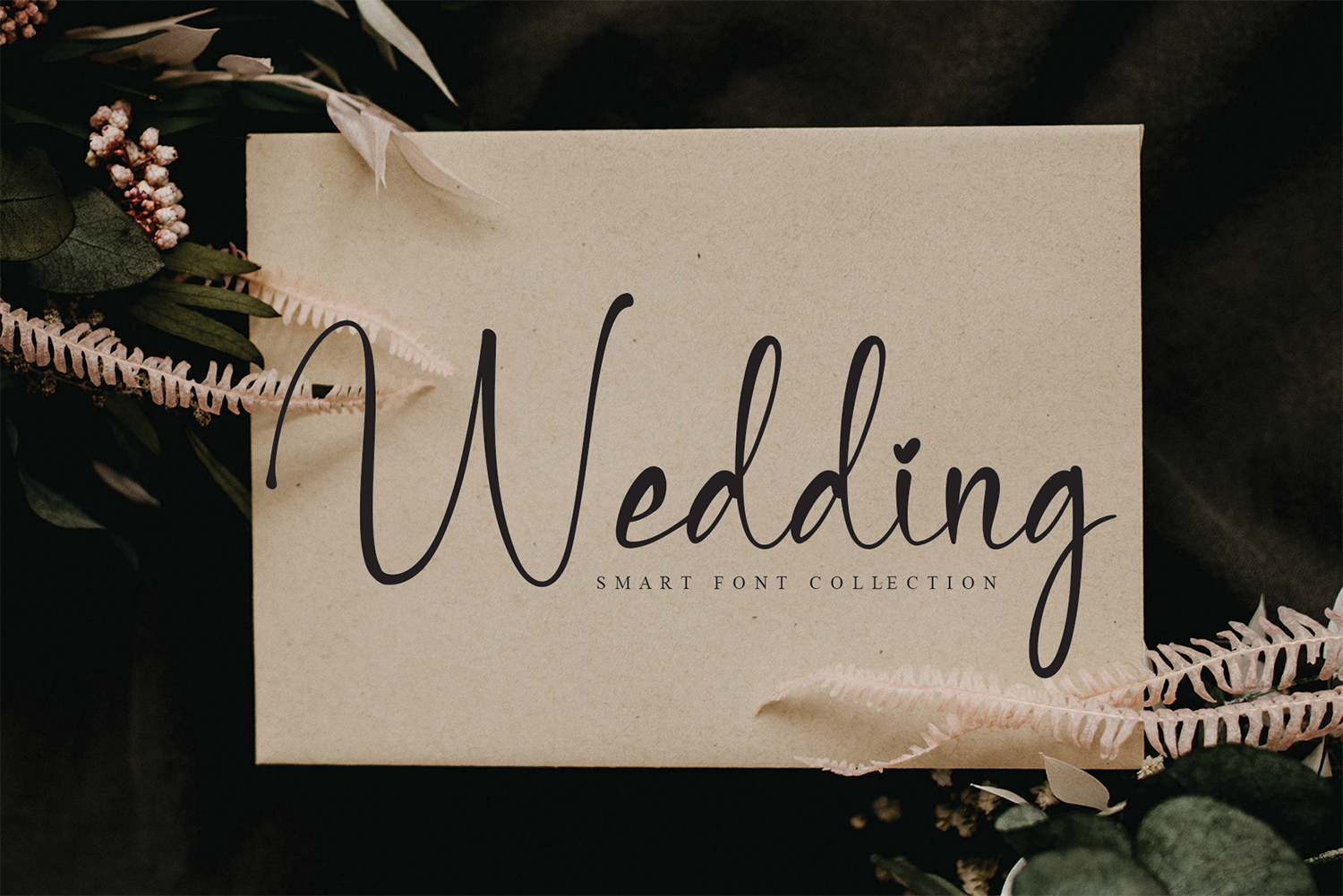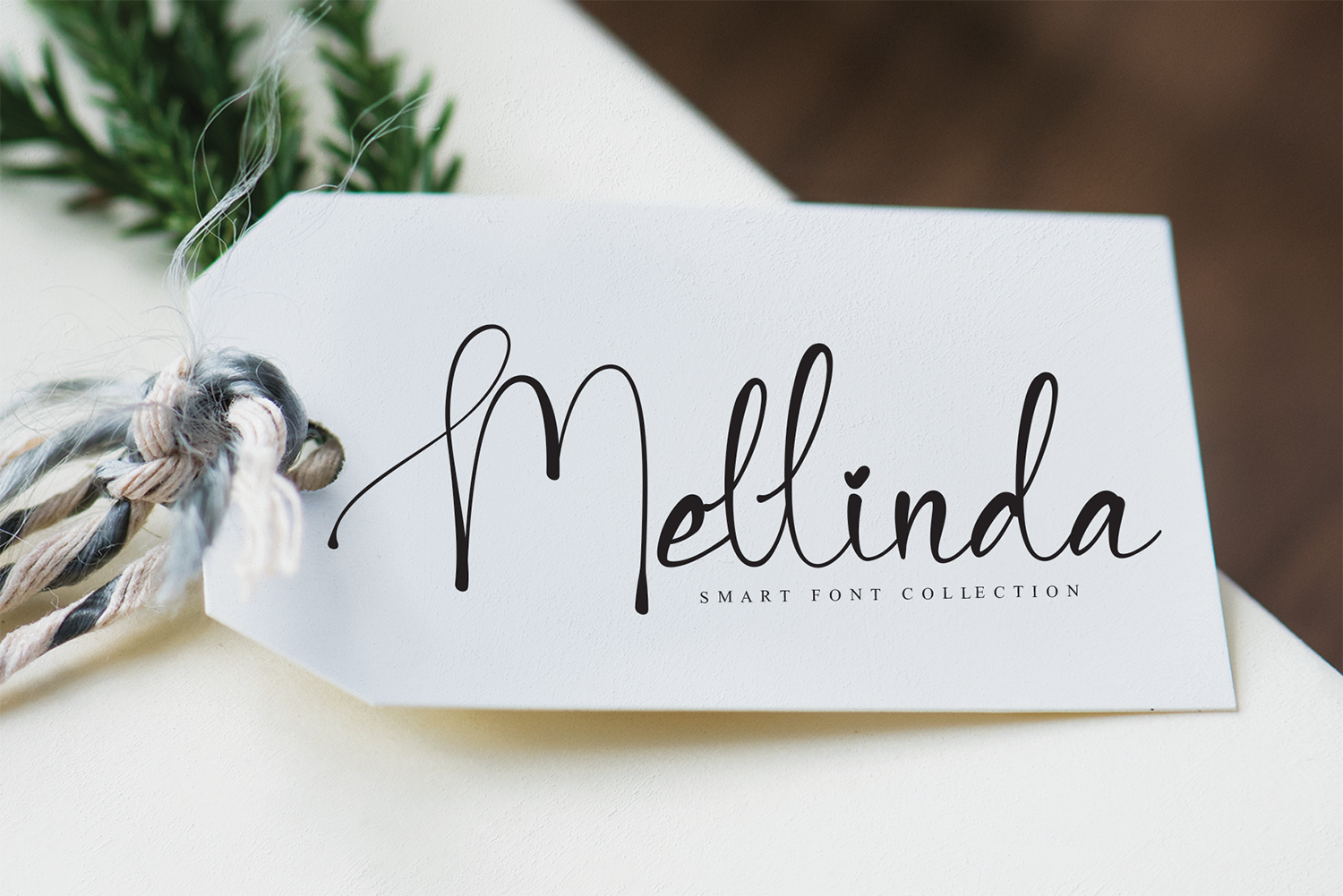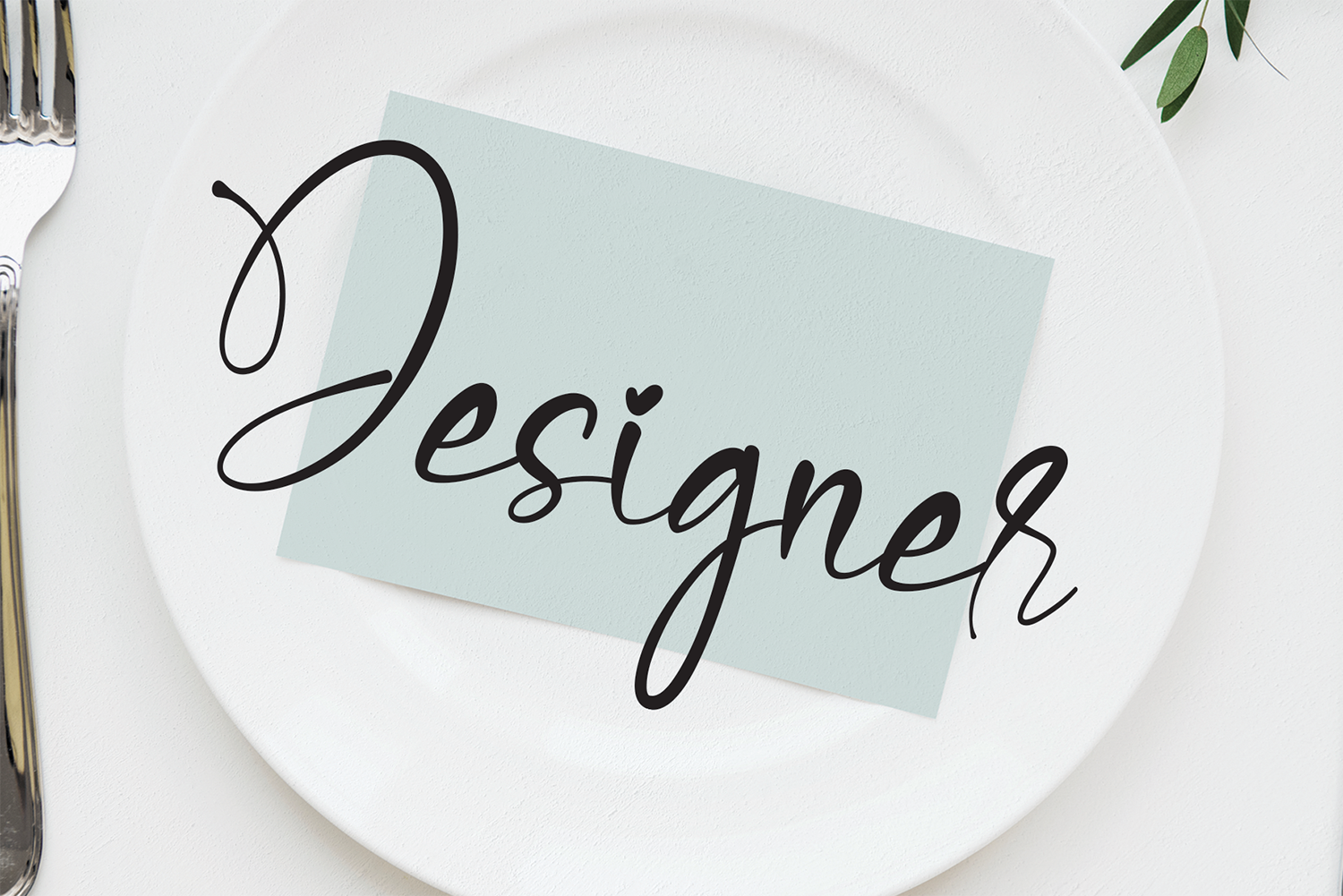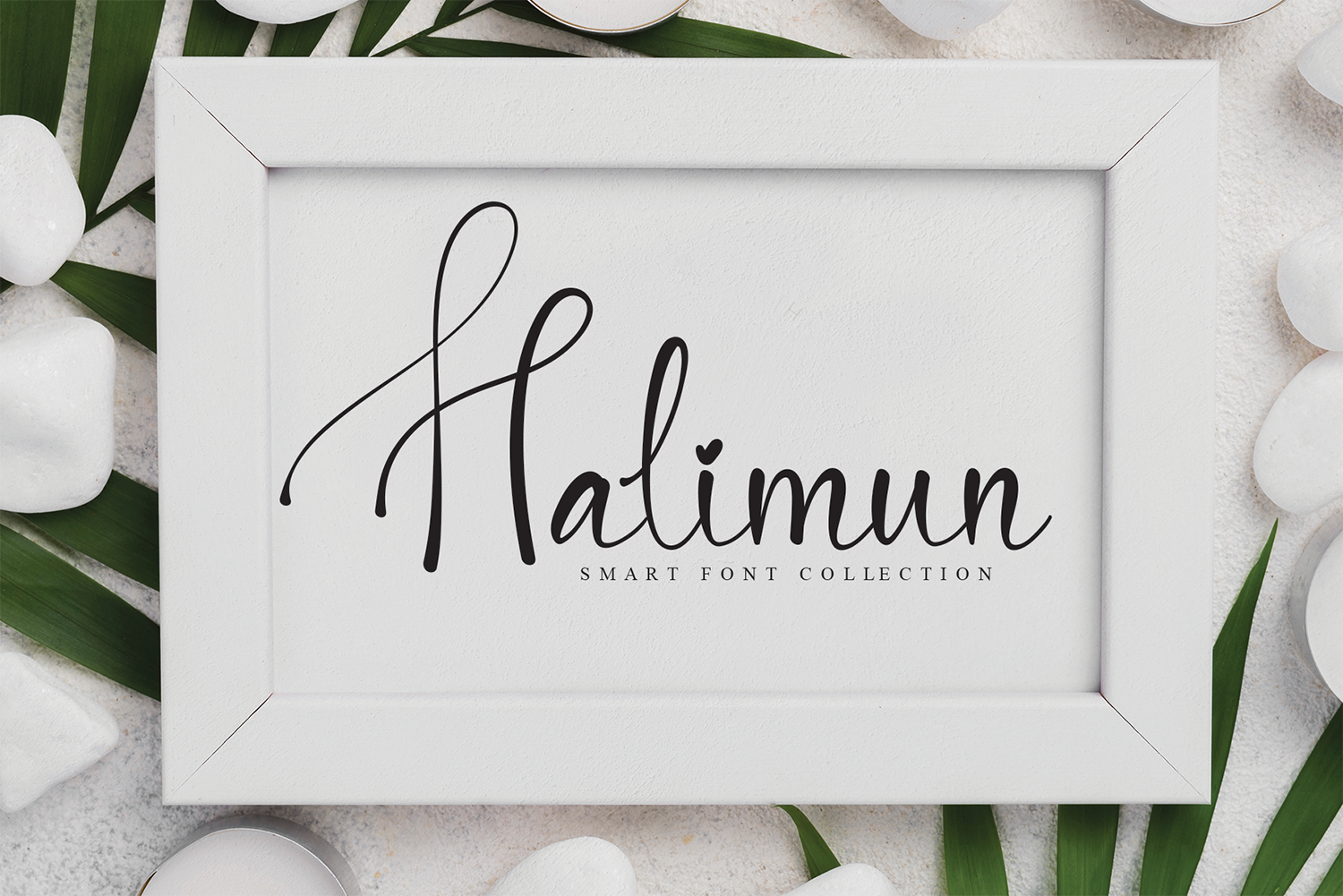
Sweetbutter Free Font
Sweetbutter Free Font is a tender and graceful handwritten font. Exuding delicacy and happiness, this font is a perfect fit for crafting wedding invitations, cards, or any design seeking a romantic and personalized flourish. This free typeface was designed by a talentedΒ Scratchones Creative. If you like it don’t forget to check out the full version.